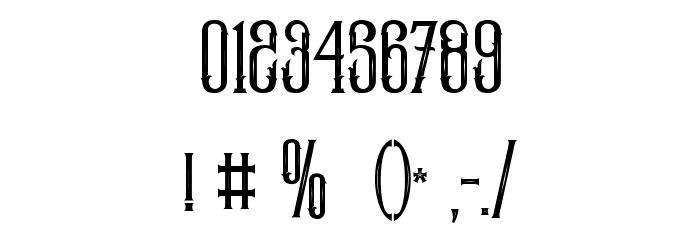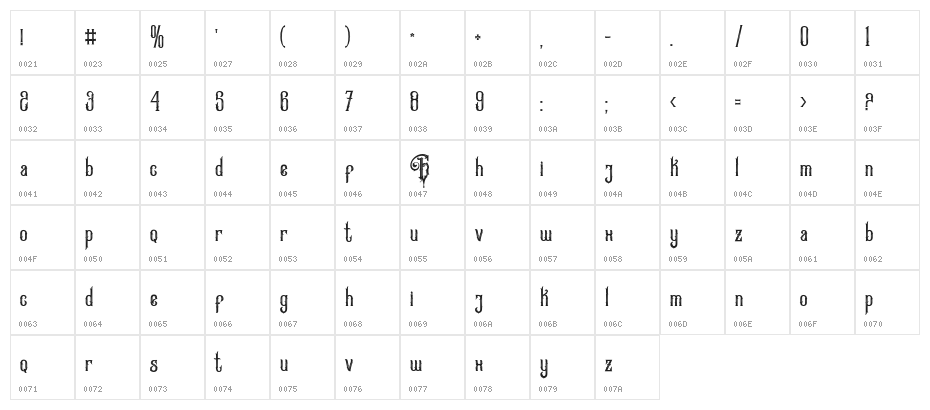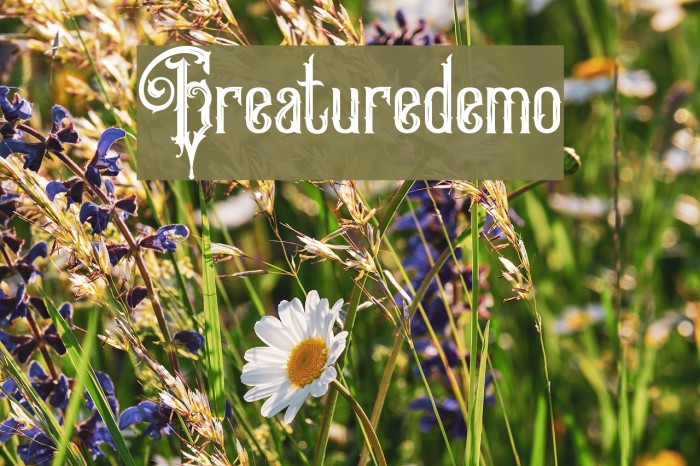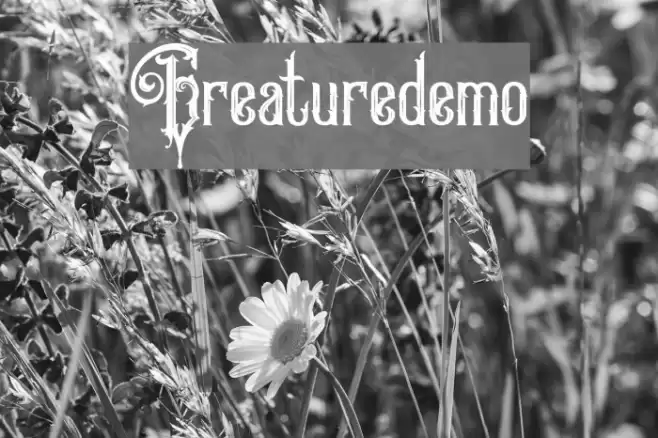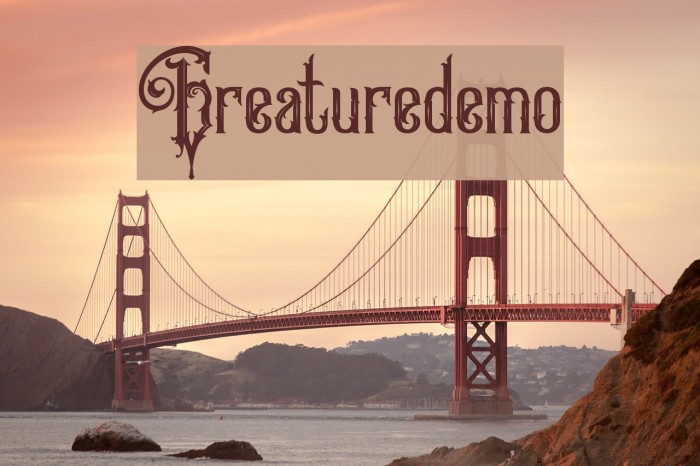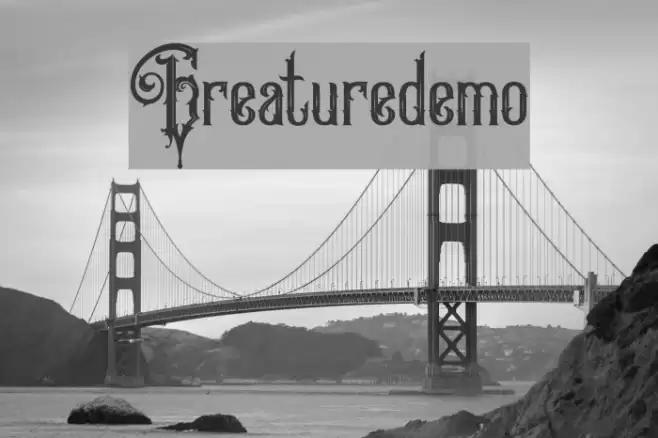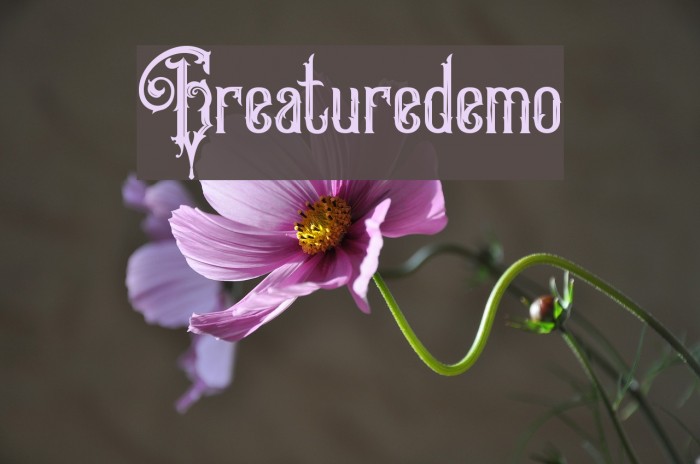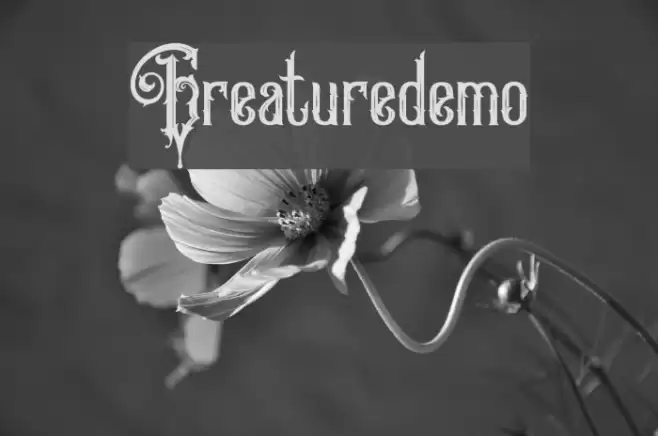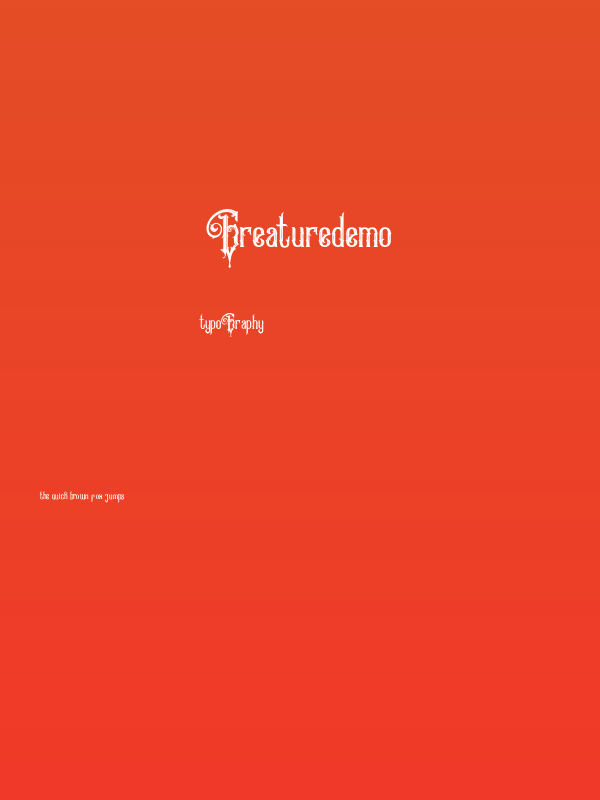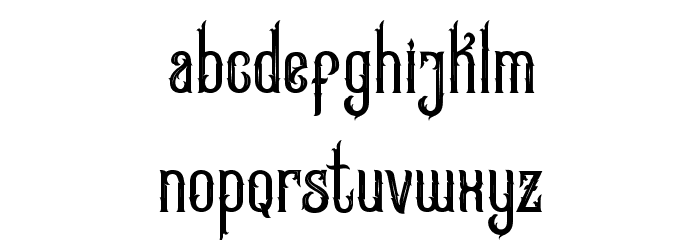
GreatureDemo Font
GreatureDemo Description
This font features a distinct and ornate style, reminiscent of Gothic or medieval script. The characters are embellished with intricate details, giving them a decorative and elaborate appearance. The uppercase letters are particularly striking, with flourishes and extended serifs that add to their grandeur. The lowercase letters maintain a consistent style, with a slightly condensed form that complements the overall aesthetic. Numbers and special characters are designed to match the ornate theme, ensuring a cohesive look across all elements. This font is ideal for projects that require a historical or dramatic flair.
| Use Case | Headlines, Logos, Decorative text |
| Proposed Projects | Ideal for historical-themed designs, book covers, posters, and branding that requires a dramatic and elaborate touch. |